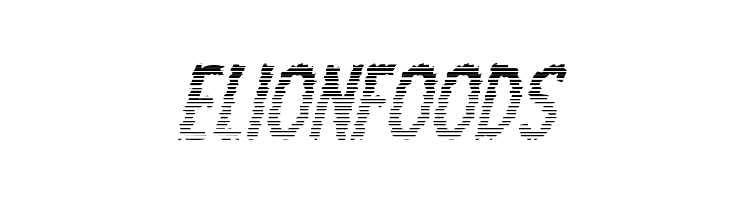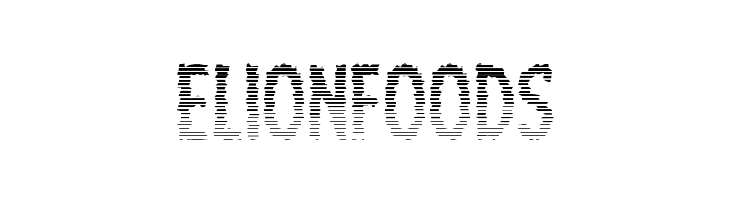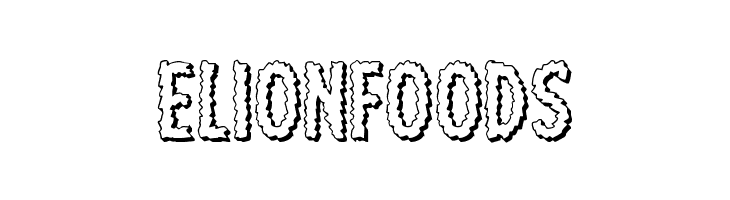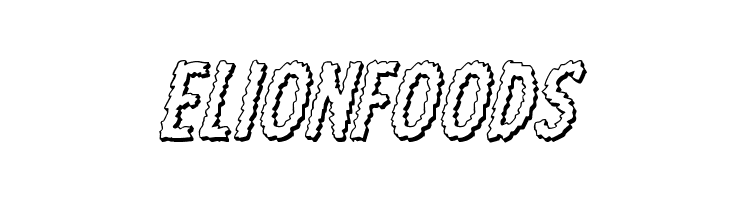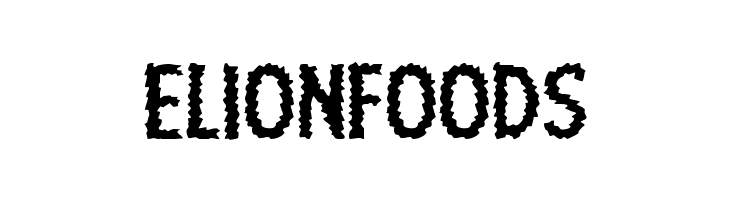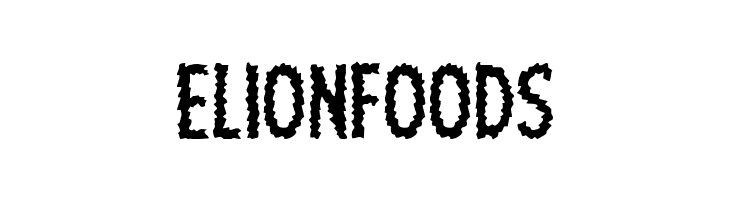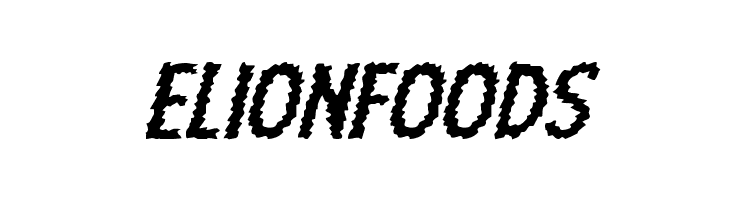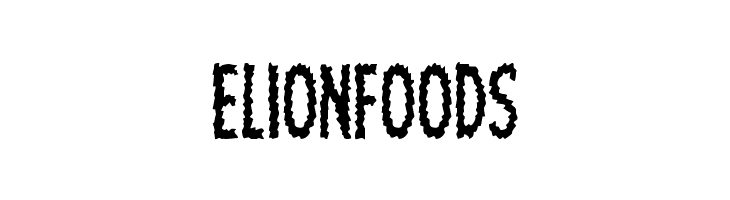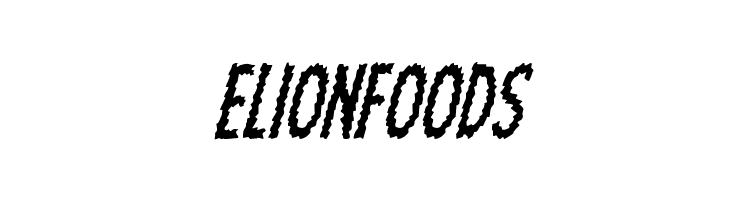
A bold, jagged font with an electrifying and dynamic style.
A bold, playful 3D font with a jagged outline.
A bold, 3D italic font with a playful and dynamic style.
A jagged, distressed, and condensed font with a bold, energetic style.
A bold, condensed, and italicized font with sharp, jagged strokes.
A bold, jagged font with an edgy, hand-cut appearance.
A bold, expanded italic font with jagged edges for a dynamic and edgy appearance.
A bold, gradient-style font with horizontal line textures for a dynamic look.
A modern, italic font with a gradient effect and dynamic horizontal lines.
A bold, halftone-textured font with a dynamic, distressed appearance.